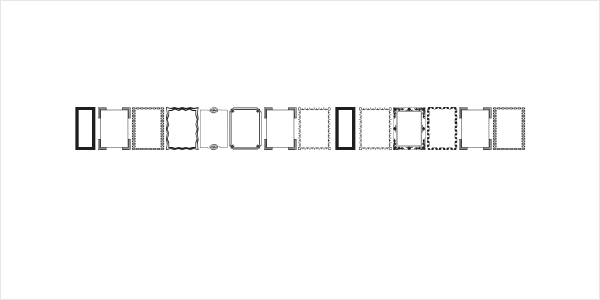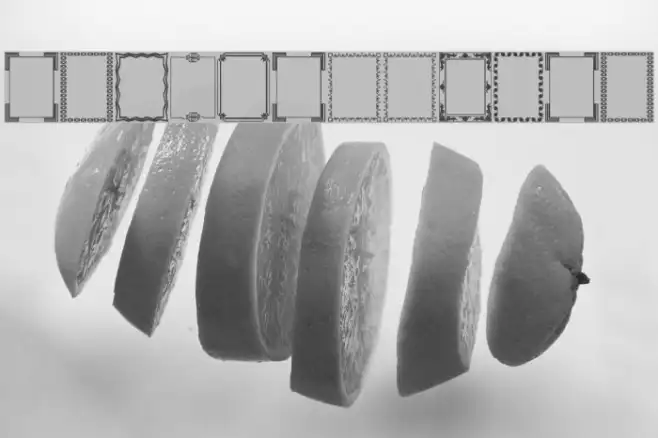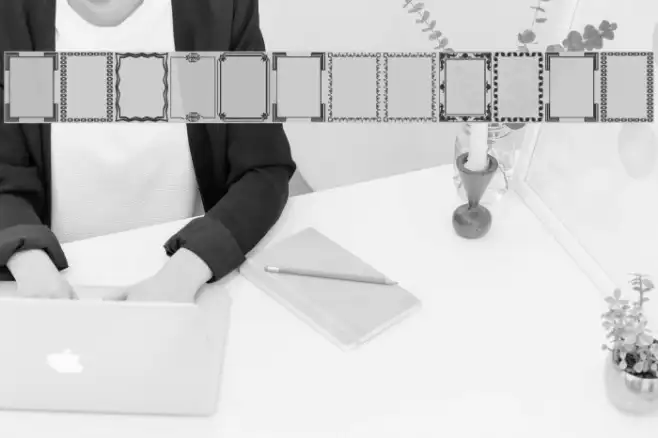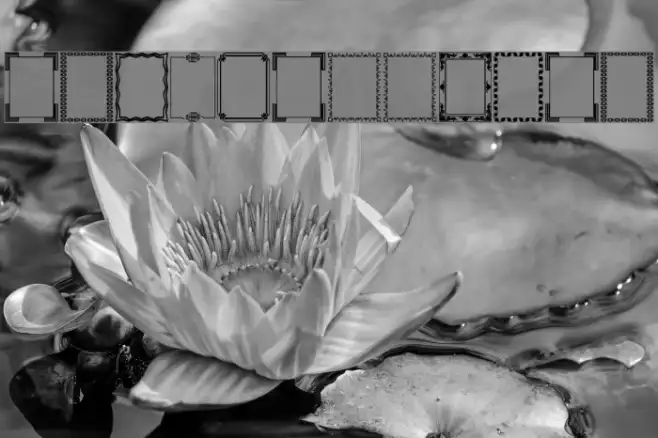
DesignerFrames Font
DesignerFrames Description
A decorative display set featuring a variety of rectangular and ornate frame designs, ranging from simple bold outlines to intricate, detailed borders with different motifs and embellishments.
| Overall Style | Decorative, Playful, Versatile |
| Use Case | Borders, Frames, Decorative accents, Graphic design elements |
| Proposed Projects | Invitations, scrapbooking, certificates, posters, digital art, photo albums, labels. |